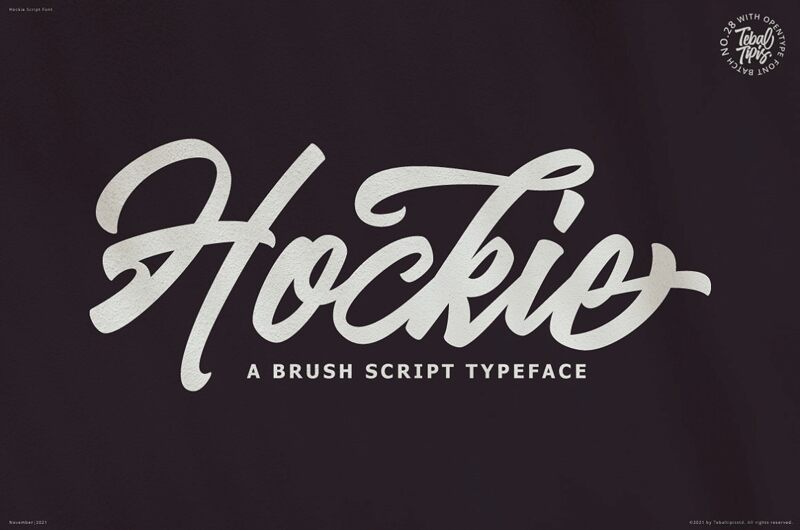
HockieScript
Hockie Script, designed by Tebaltipis Studio, is a charming handwritten font that adds a personal touch to any project.
With its semi-light weight, this font brings an elegant and delicate feel to your designs. Ideal for greeting cards, and feminine branding projects, Hockie Script's flowing curves and unique character variations create a sense of authenticity and warmth. Let this font be the perfect choice for adding a touch of sophistication and creativity to your next creative endeavor.